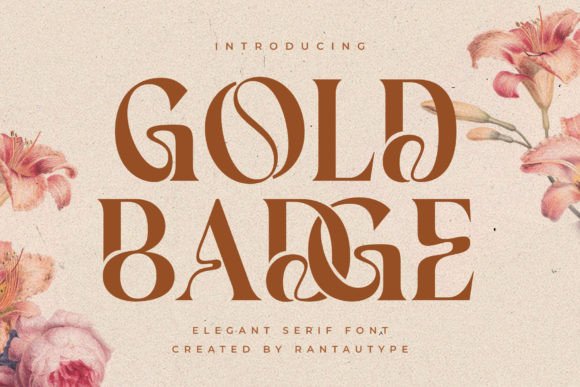
Introducing Gold Badge Font, the perfect serif font for your marriage card needs. Created by RantauType, this modern font features a unique and bold curve that will captivate your audience. With its elegance and versatility, Gold Badge is the ultimate choice for any creative endeavor.
One of the standout features of Gold Badge is its extensive range of alternates and ligatures. These additional options allow you to mix and match, creating truly stunning displays that will leave a lasting impression. Whether you're designing a logo, a title, a cover, or any branding material, Gold Badge will elevate your project to new heights.
With its chic and modern aesthetic, Gold Badge is ideal for lifestyle designs. Whether you're working on a magazine layout, creating eye-catching displays, or crafting a stylish logo, this font is guaranteed to make a statement. Its versatility knows no bounds, making it a must-have for designers and creatives alike.
The beauty of Gold Badge lies in its ability to transform any creative project into a work of art. Its elegant curves and stylish appearance add a touch of sophistication to your designs, creating a sense of luxury and refinement. Your audience will be captivated by the professionalism and attention to detail that Gold Badge brings to the table.
When it comes to branding, Gold Badge offers endless possibilities. With this font, you have the power to create stunning and memorable branding materials that truly represent your unique vision. Stand out from the crowd with a font that speaks volumes about your brand's personality and style.
In conclusion, Gold Badge Font is a game-changer in the world of serif fonts. Its modern and unique design, coupled with its versatility and extensive range of alternates, makes it the perfect choice for any creative project. Whether you're designing a marriage card, a logo, or a magazine layout, Gold Badge will elevate your work and leave a lasting impression on your audience.